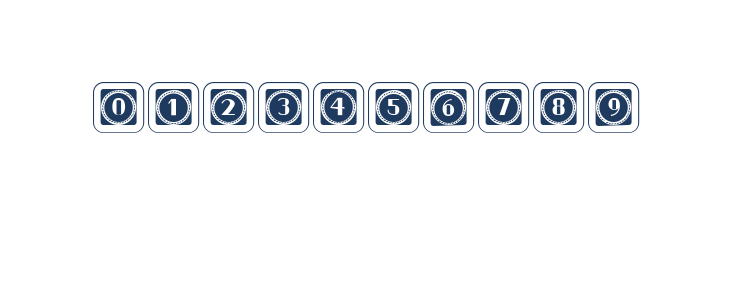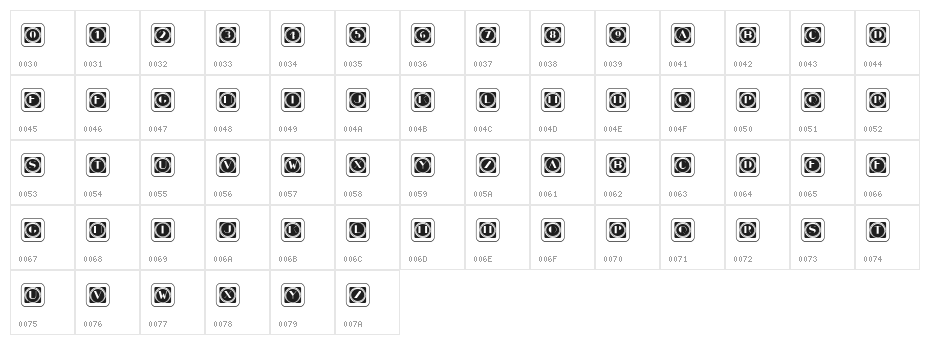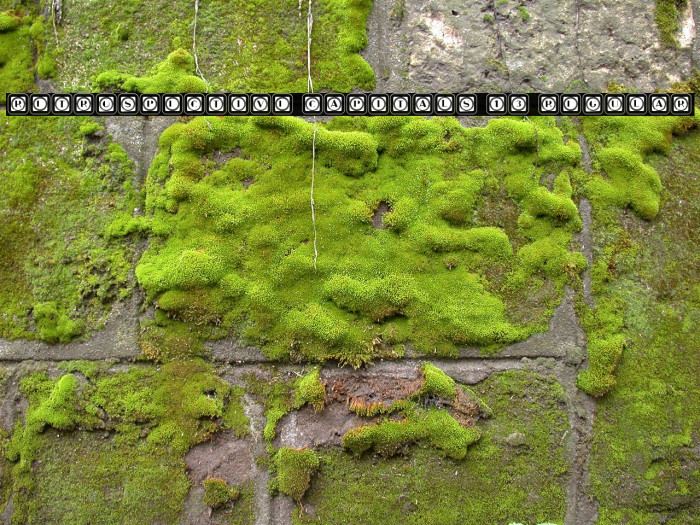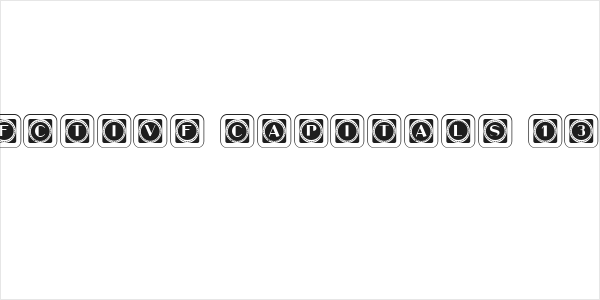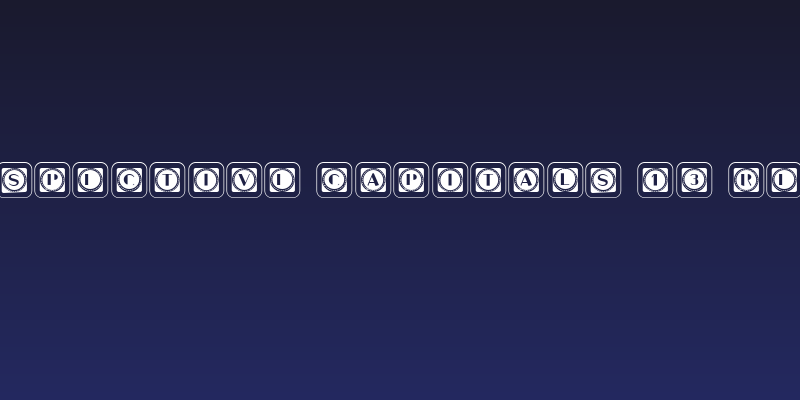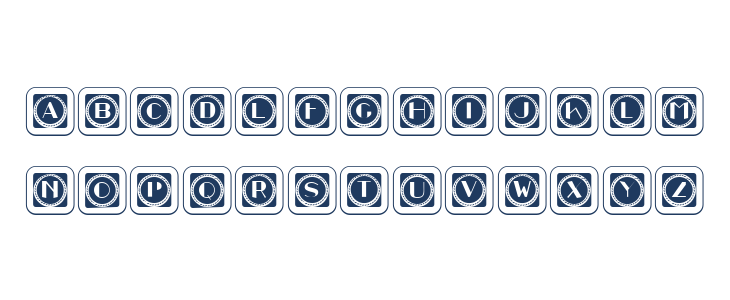
Retrospective Capitals 13 Regular Font
Retrospective Capitals 13 Regular Description
This font features a bold, decorative style with each character enclosed in a square border. The letters and numbers are centered within these squares, creating a uniform and structured appearance. The characters themselves have a classic serif design, with distinct and pronounced serifs that add a touch of elegance. The overall look is reminiscent of vintage typewriter keys, giving it a nostalgic and retro feel. The high contrast between the thick and thin strokes of the letters enhances readability while maintaining a stylish aesthetic. This font is ideal for projects that require a vintage or retro theme, such as posters, invitations, or branding materials.
| Use Case | Headlines, Logos, Decorative text |
| Proposed Projects | Ideal for vintage-themed posters, invitations, branding, and decorative projects. |